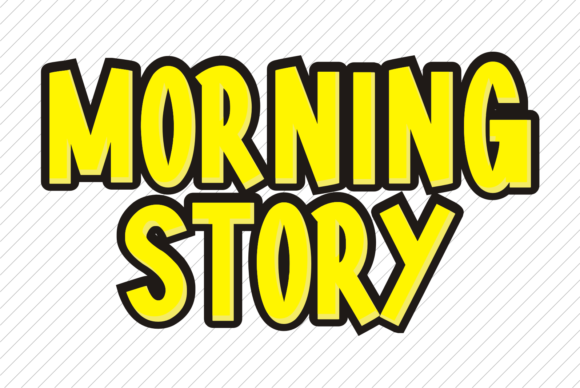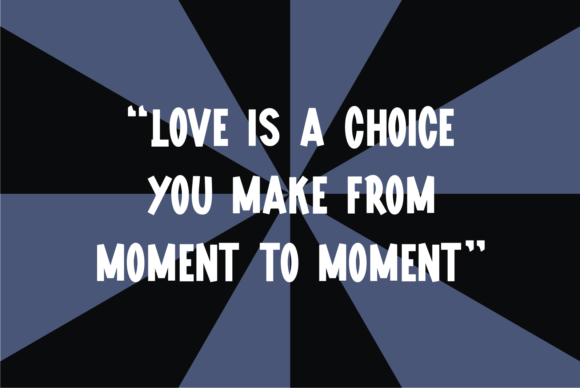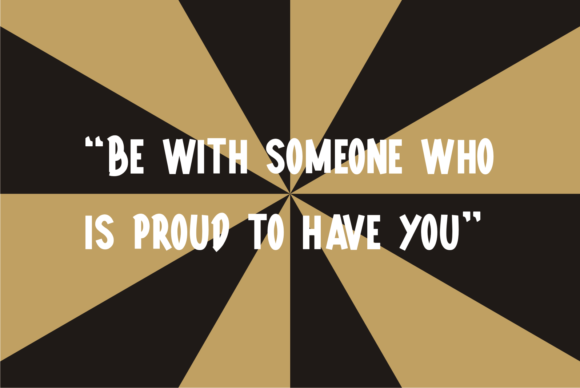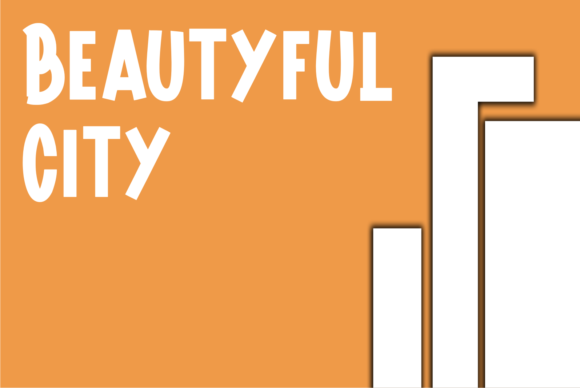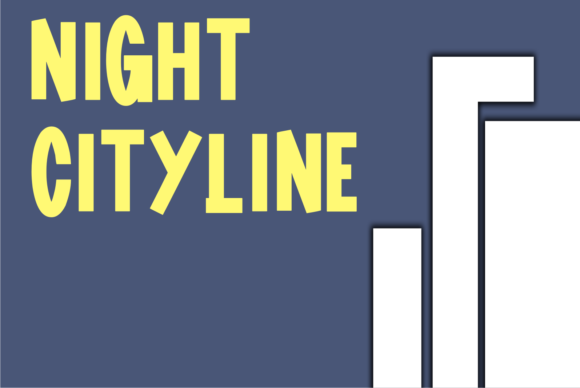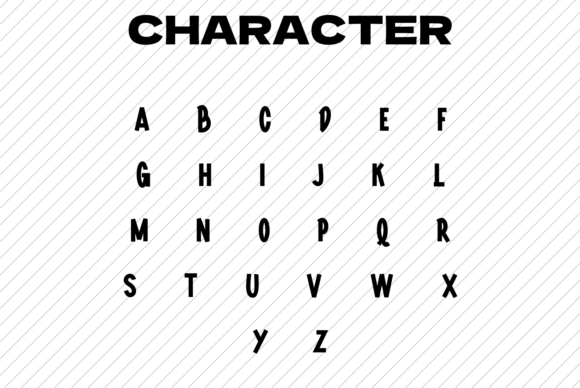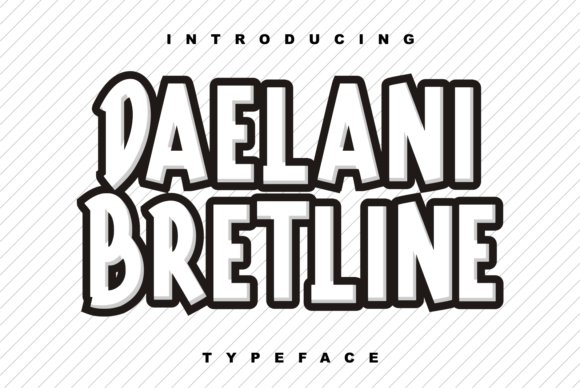
Introducing Daelani Bretline Font: The Ultimate Display Font for Creative Projects
Are you tired of using the same old fonts for your creative projects? Look no further! Daelani Bretline Font is here to revolutionize the way you approach typography. This thick-lettered and cool display font is designed to make a statement, adding a strong visual effect to your creations that will instantly set them apart from the rest.
The Power of Daelani Bretline Font
Daelani Bretline Font is more than just a font – it’s a design statement. Its simple yet bold design makes it perfect for a wide range of creative projects, from branding and advertising to crafting and DIY tutorials. With Daelani Bretline Font, you can add a touch of personality to your work, making it more appealing and engaging to your audience.
Key Features of Daelani Bretline Font
- Thick-Lettered Design: Daelani Bretline Font features thick, bold letters that make a statement. Its sturdy design ensures that your text stands out, even at a distance.
- Cool Display Font: This font is designed to be a showstopper. Its unique blend of modern and edgy elements makes it perfect for creative projects that demand attention.
- Simple yet Effective: Despite its bold design, Daelani Bretline Font is surprisingly simple to read and use. Its clean lines and minimal embellishments ensure that your message gets across clearly.
Why Choose Daelani Bretline Font?
With so many fonts to choose from, why should you choose Daelani Bretline Font? Here are just a few reasons:
- Instant Impact: Daelani Bretline Font is designed to make an instant impact. Its bold design ensures that your text stands out, grabbing the attention of your audience from the very start.
- Versatility: This font is incredibly versatile, suitable for a wide range of creative projects, from digital designs to print materials.
Daelani Bretline Font is a dream come true for designers and crafters. Whether you’re creating digital designs, print materials, or handmade crafts, this font is sure to inspire your creativity. Here are just a few ways you can use Daelani Bretline Font:
- Branding and Advertising: Use Daelani Bretline Font to create eye-catching logos, posters, and advertisements that demand attention.
- Crafting and DIY Tutorials: Add a touch of personality to your crafting and DIY tutorials with Daelani Bretline Font. Use it to create eye-catching titles, headings, and labels.
- Digital Designs: Daelani Bretline Font is perfect for digital designs, including social media graphics, blog posts, and website headers.
In conclusion, Daelani Bretline Font is a game-changer for designers and crafters. Its thick-lettered and cool display design makes it perfect for creative projects that demand attention. With its simplicity, versatility, and ease of use, Daelani Bretline Font is sure to become a staple in your design toolkit. So why wait? Download Daelani Bretline Font today and take your creative projects to the next level!